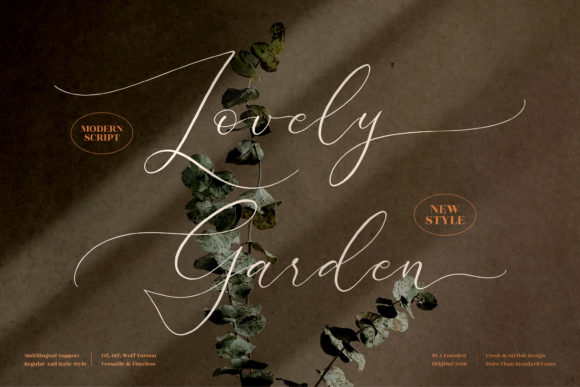
Step into the captivating world of Lovely Garden Font, a script font family that will transport your designs into a realm of romance and delight. Inspired by the vibrant energy of New York City, this font exudes a thin lettered calligraphy style that dances gracefully along the baseline. Prepare to be mesmerized as the characters of Lovely Garden Font add an aura of luxury and sophistication to your creative projects.
Crafted with utmost care and attention to detail, Lovely Garden Font is perfect for a myriad of design endeavors. Whether you're a seasoned designer seeking to infuse your projects with a touch of elegance or a novice looking to make a statement, this font has the power to transform your vision into reality. Its versatility extends to an array of applications, from heartfelt wedding invitations and enchanting logos to captivating social media posts and alluring branding materials.
Indulge in the boundless possibilities that await you with Lovely Garden Font. Experience the ease of use that comes with its PUA encoding, allowing you to effortlessly access a treasure trove of glyphs and ligatures. Unleash your creativity and explore the limitless potential of this font, letting your designs blossom into masterpieces that captivate and inspire.
Don't miss out on the opportunity to elevate your designs with Lovely Garden Font. Embrace the allure of its romantic calligraphy style and embark on a journey of creativity that will leave a lasting impression. Let the characters of Lovely Garden Font dance across your projects, infusing them with an enchanting charm that will set them apart from the ordinary.